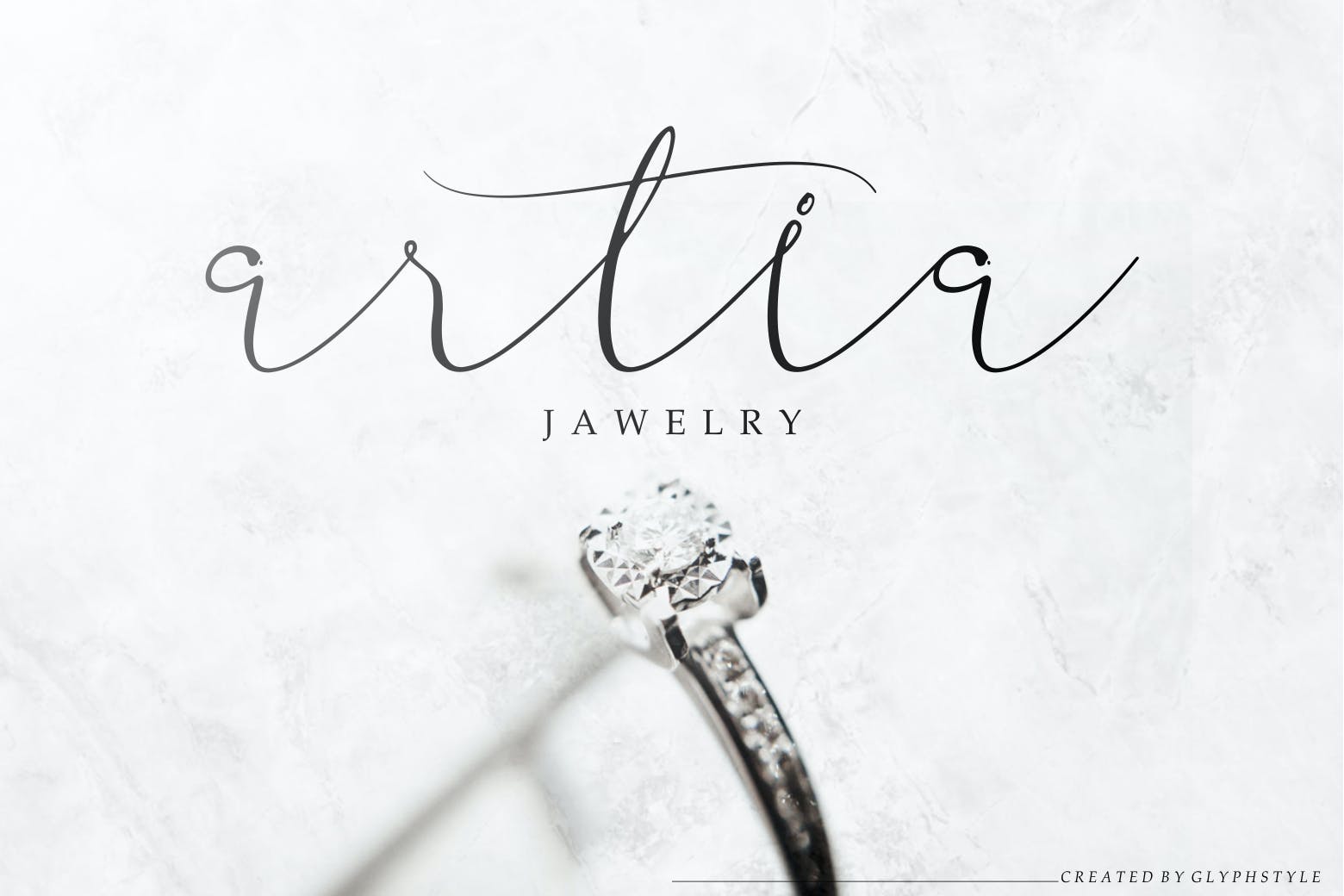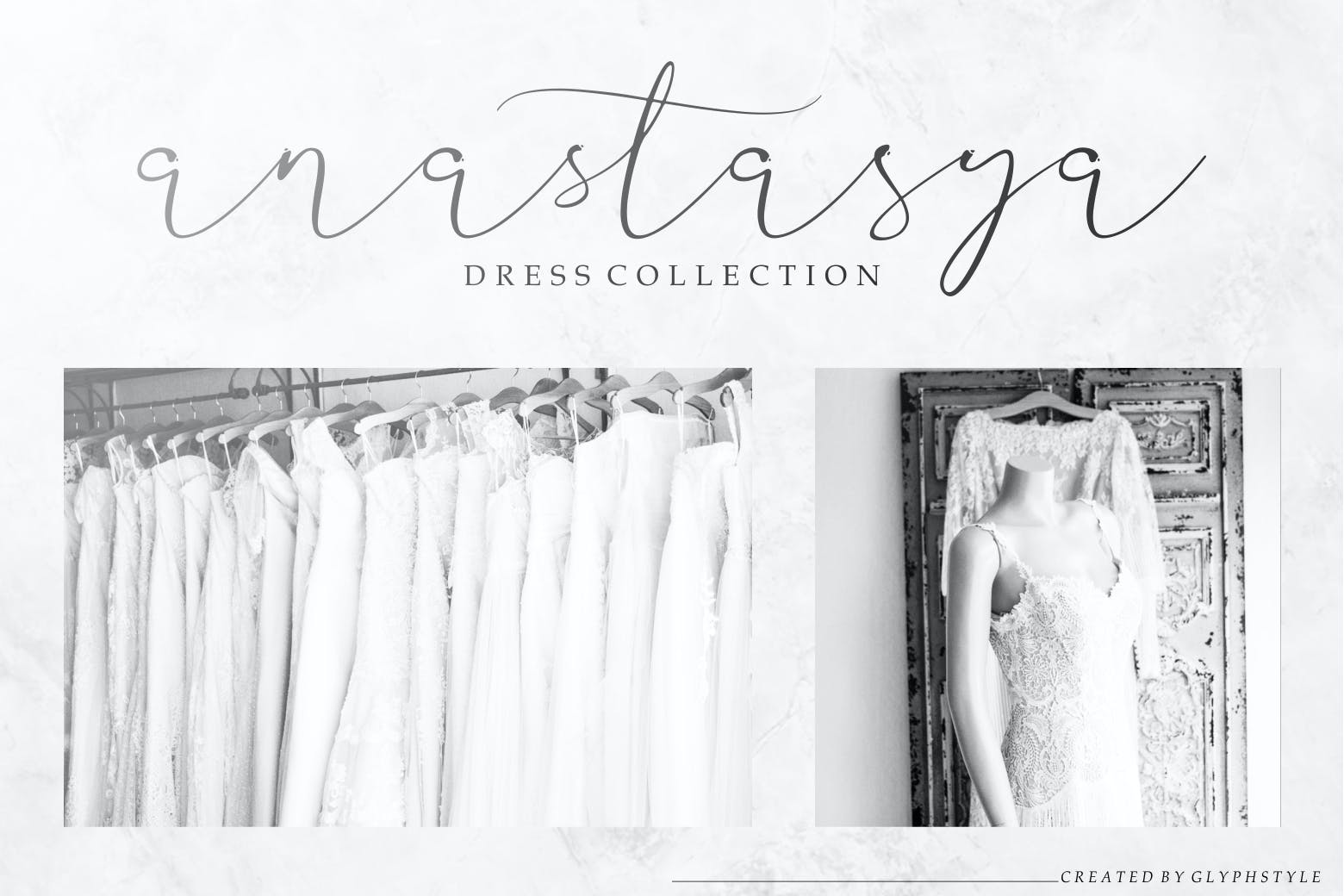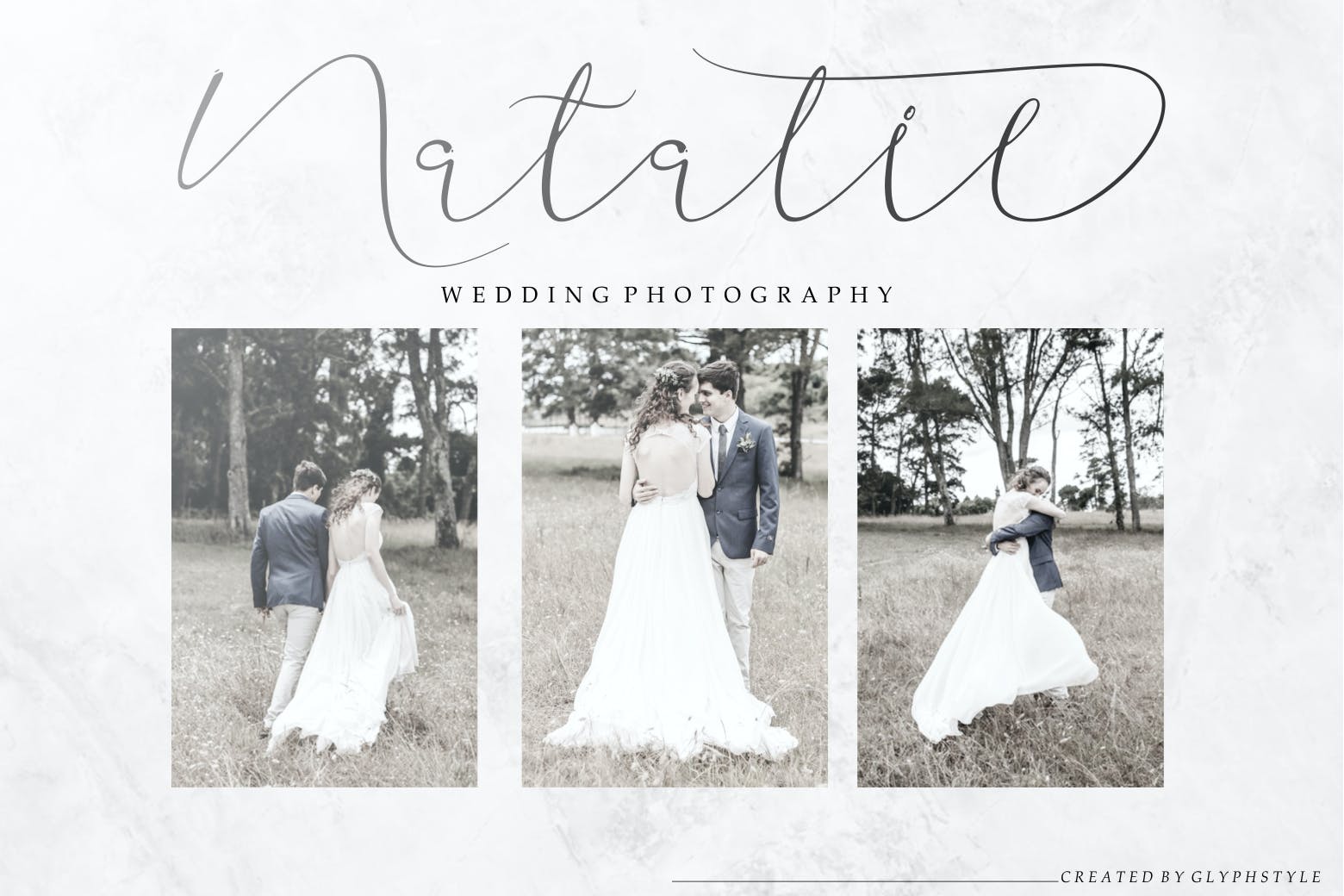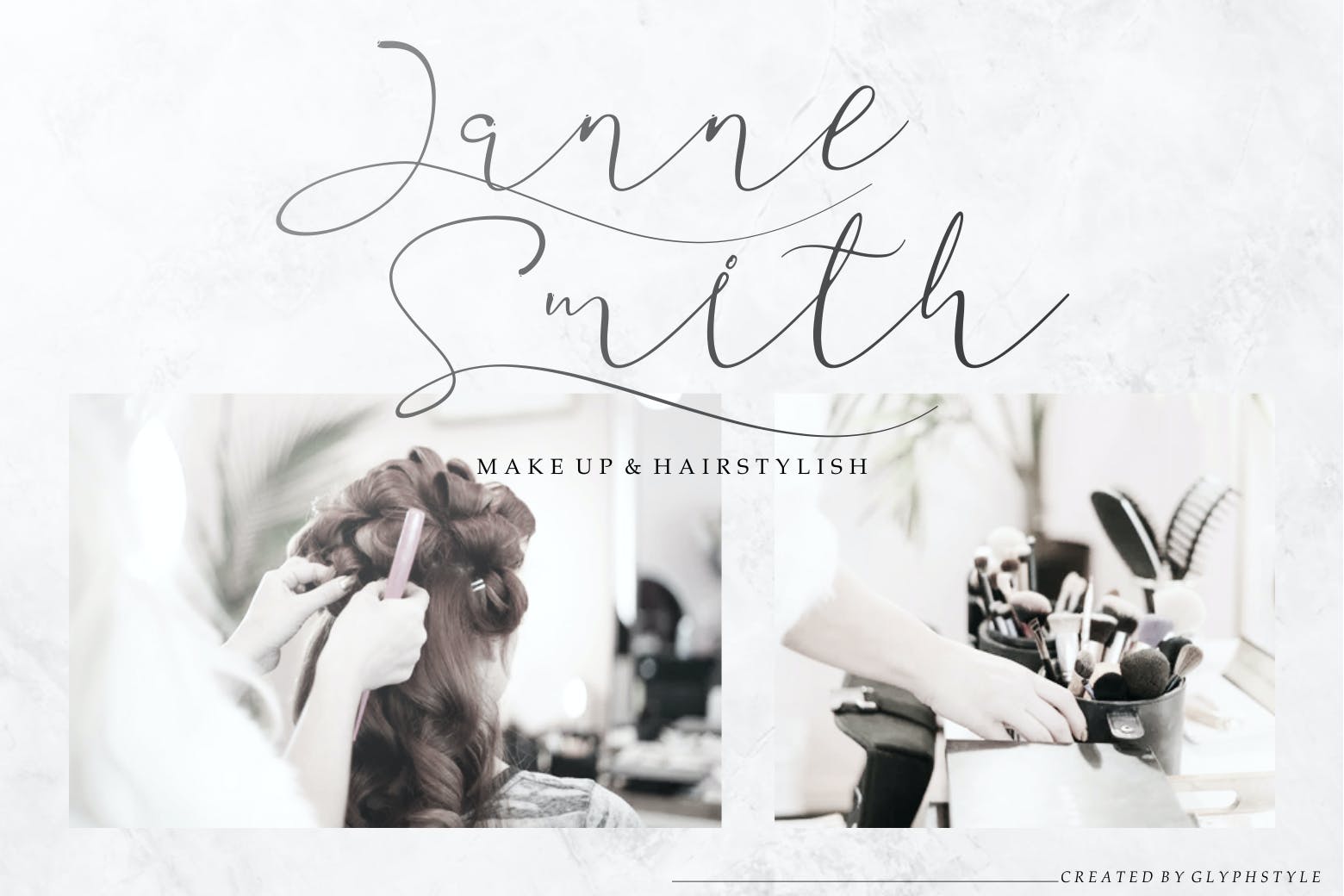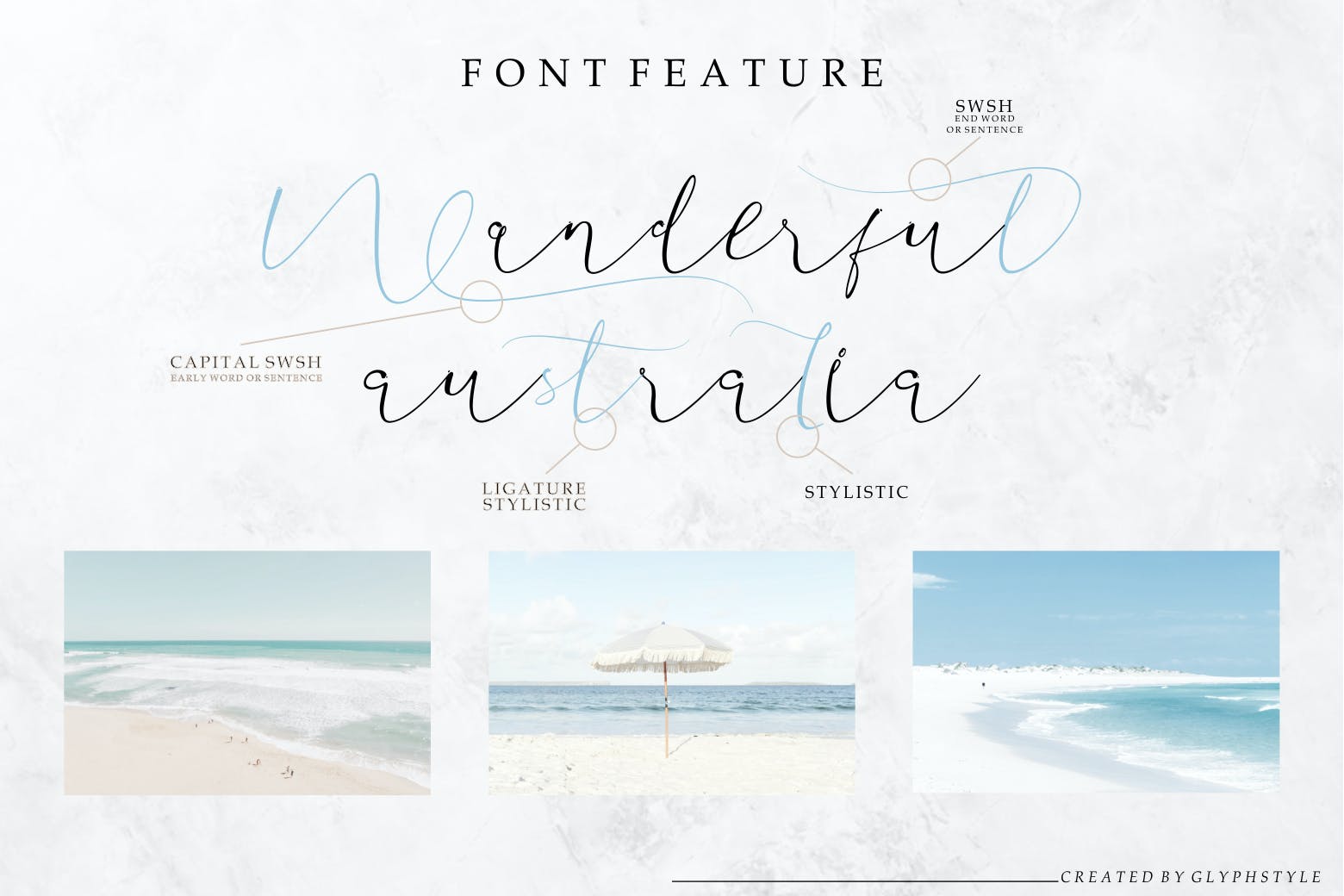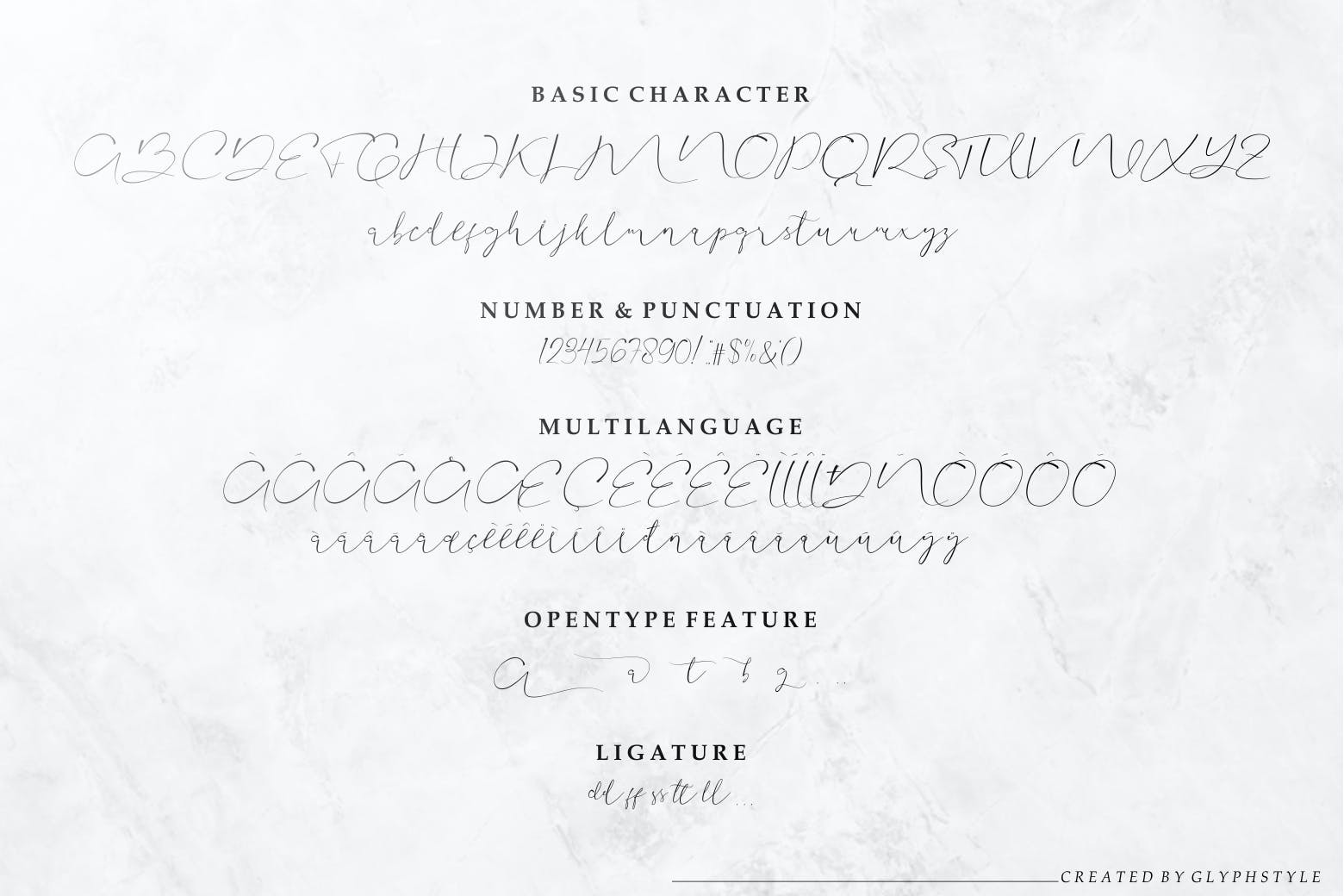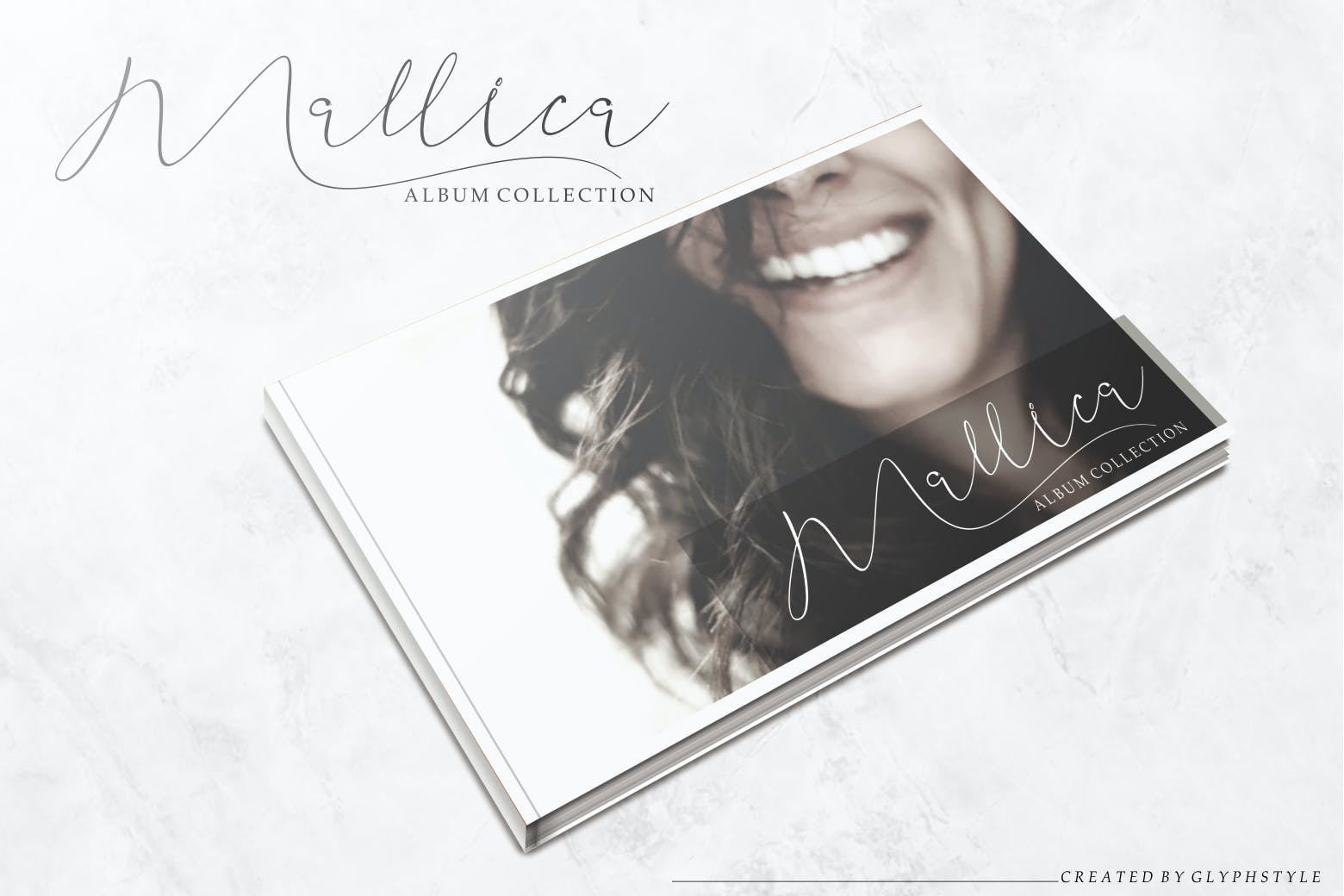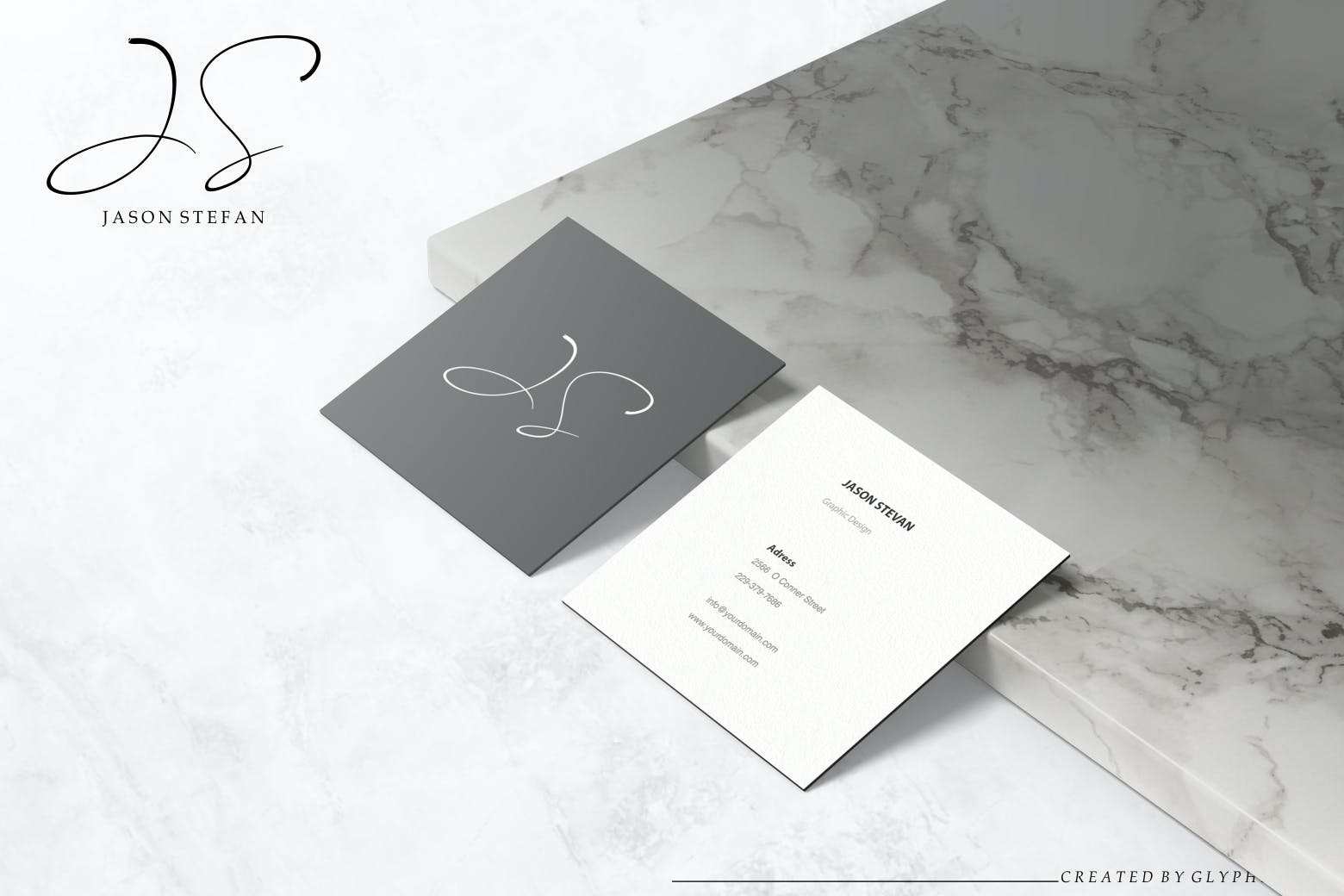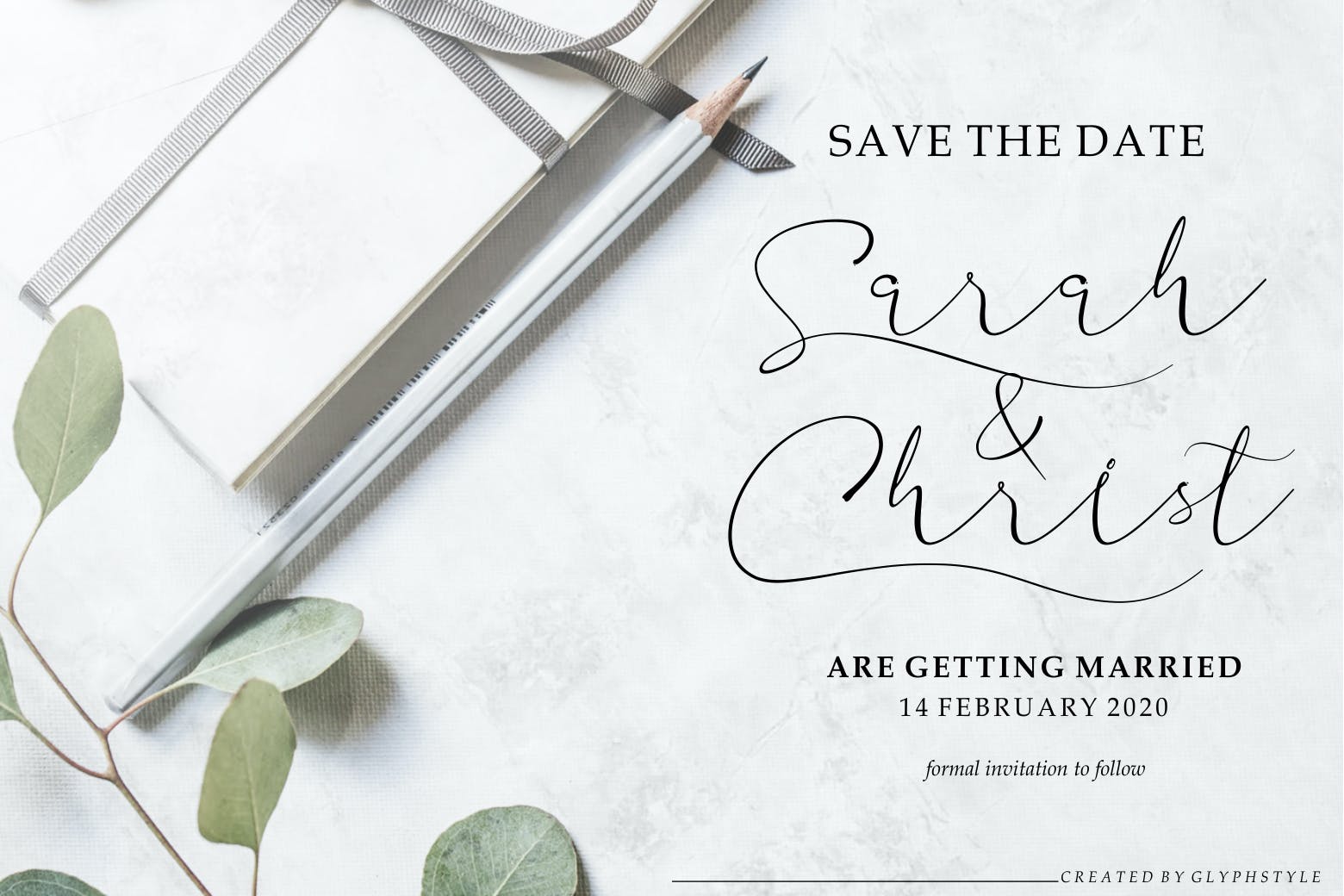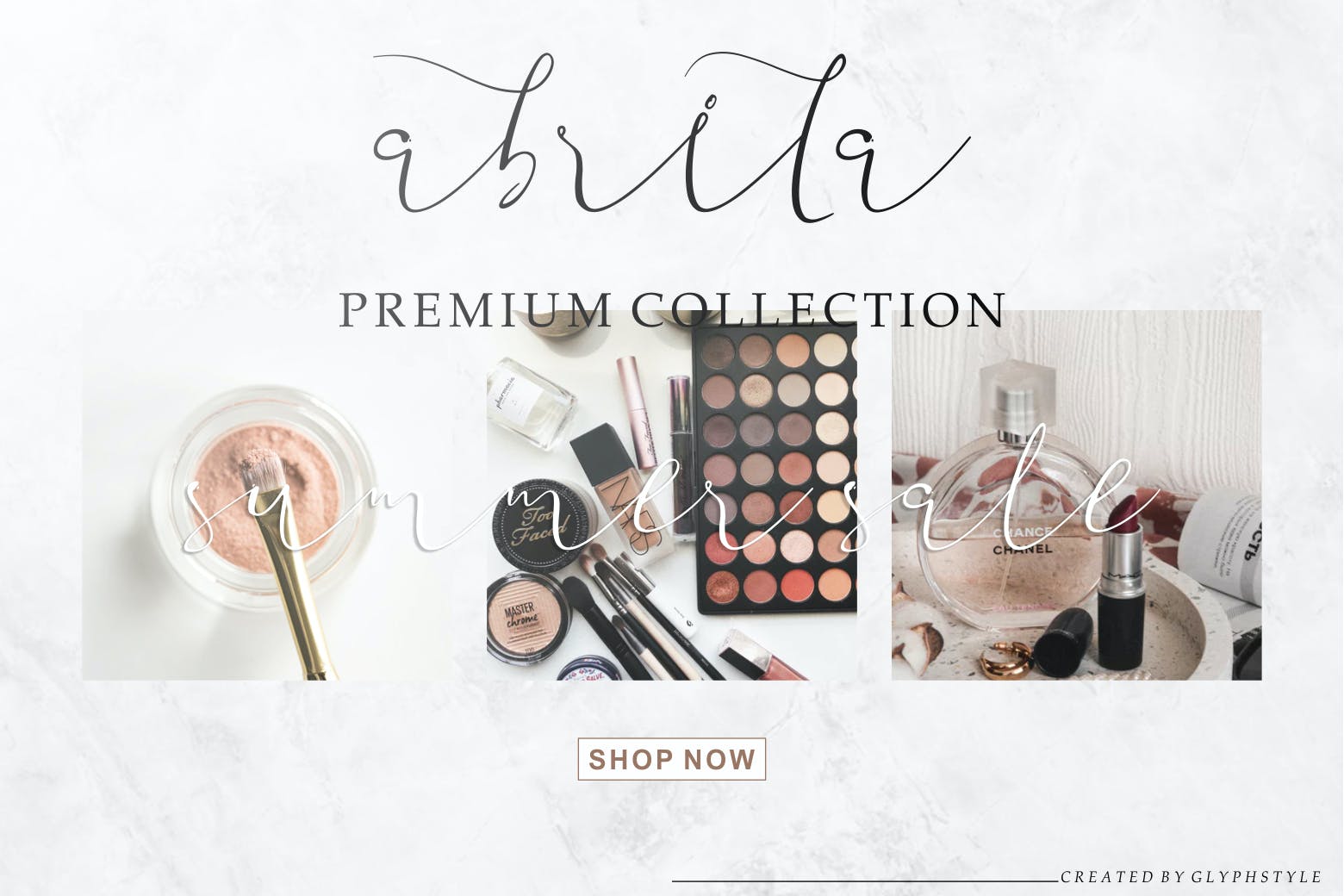
Free Aullia Modern Calligraphy Font
Free Aullia Modern Calligraphy Font is a modern calligraphy writing style. It is coming with the consistency of very luxurious looking letters. This calligraphy font can be useful for weddings, cosmetic products, photography logos, magazines, business cards, and more. It is available for the OTF format file that you can install and use on your devices. So, this demo font comes with for a personal license, go purchasing the premium version for more features.